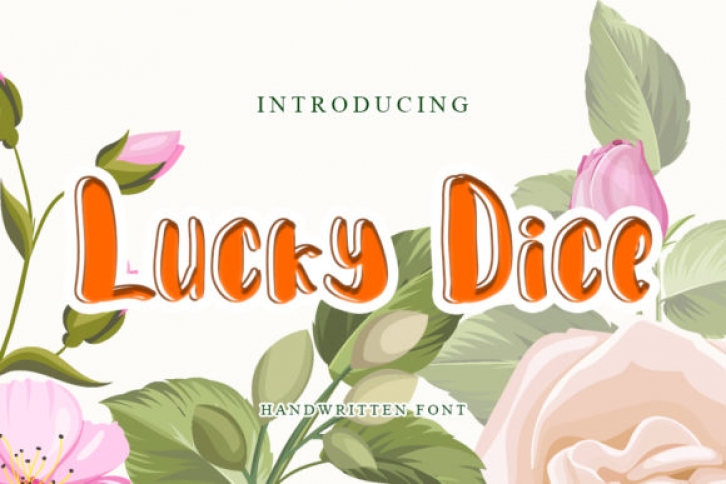
Lucky Dice is a fun handwritten font, carefully handcrafted to become a true favorite. It will look outstanding in any context, whether it’s being used on busy backgrounds or as a standalone headline!